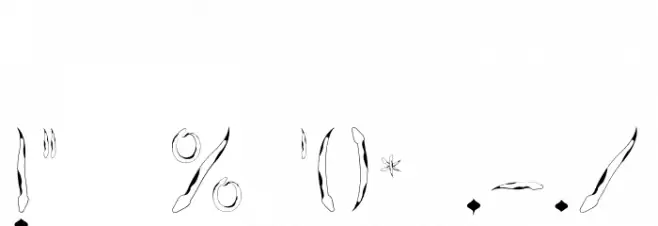
SlitherNN Font
SlitherNN Description
This font features a unique, serpentine design with each character resembling a snake-like form. The letters have an organic, flowing appearance, with curves and twists that mimic the movement of a snake. The strokes are uneven, adding to the natural and whimsical feel of the font. The overall design is playful yet elegant, making it suitable for creative and artistic projects. The special characters maintain the same fluid style, ensuring consistency across all glyphs.
A snake-inspired, flowing font with organic curves and twists from Decorative fonts.
- Proposed Projects: Ideal for creative projects such as children's book covers, fantasy-themed posters, or unique branding materials.
- Use Case: Logos, Headlines, Artistic projects